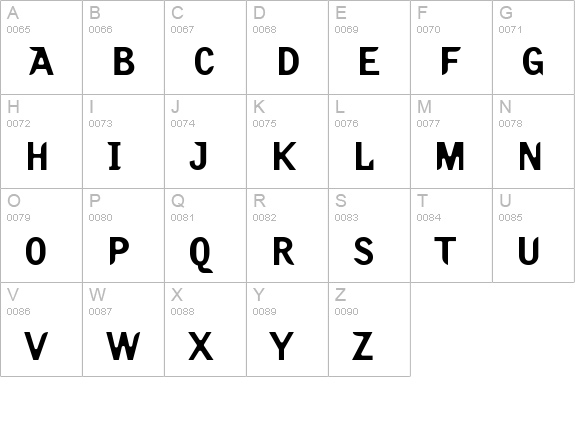
Truth-Heavy is a heavy, high-impact variant in the Truth typeface family \xE2\x80\x94 well suited to high-impact headlines, posters, and display advertising.
Introducing Truth-Heavy font, a captivating and bold typeface that exudes a sense of strength and power. With its commanding presence, this font is designed to effortlessly grab attention and make a bold statement in any project. Truth-Heavy font is characterized by its strong, thick lines and pronounced curves, creating a visually striking appearance that demands to be noticed. It is perfect for headlines, titles, logos, and any design element that requires a touch of authority. This font's unique and artistic design makes it stand out among the crowd, setting it apart from conventional typefaces. Its carefully crafted letterforms pay homage to tradition while embracing modern trends, making it a versatile choice for both classic and contemporary designs. But what truly sets Truth-Heavy font apart is not just its remarkable aesthetics, but also its accessibility. This exceptional font is freely available to download at FontsMarket.com, allowing designers and creatives of all backgrounds to benefit from its distinct charm. Whether you are working on a professional project or a personal endeavor, Truth-Heavy font will help you make a lasting impression. Its impact is undeniable and its versatility unmatched, making it a valuable asset in any design toolkit. So, why settle for ordinary when you can have extraordinary? Download Truth-Heavy font now, and unleash its power to captivate and inspire. Experience the freedom to create with this remarkable font, and let your designs speak volumes with every letter.